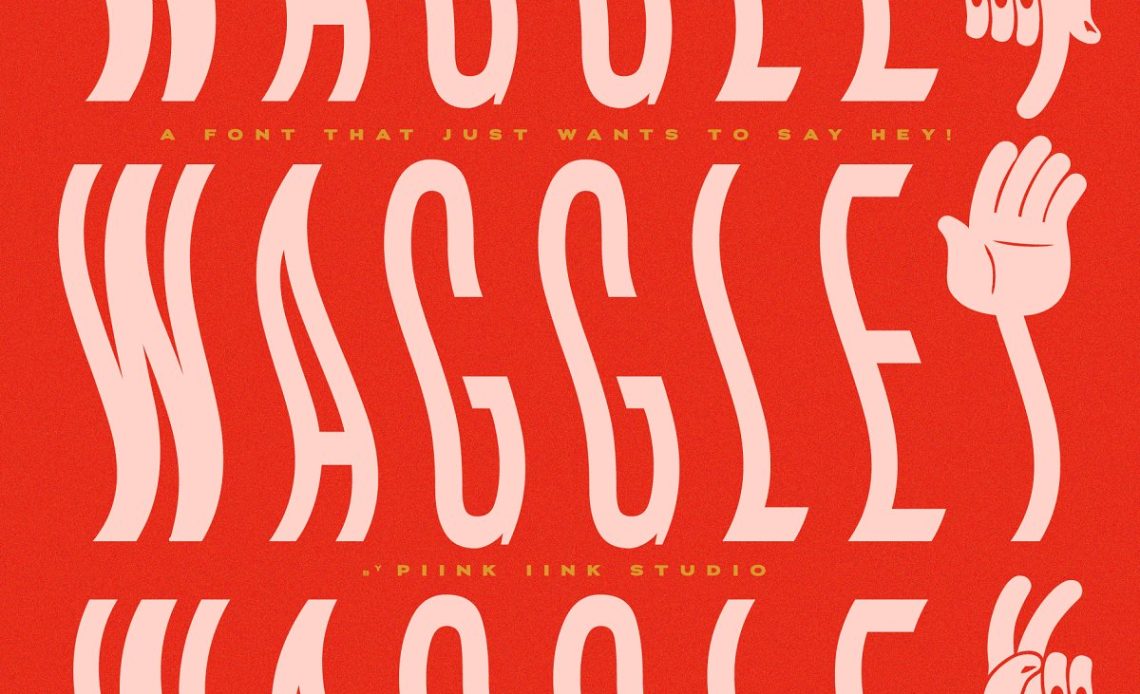
Are you looking for the perfect font to make your social media posts and advertising materials stand out? Look no further than WAGGLE Display Font! Created by the talented Jenny Boehme, this font is the best choice for bold hashtags and catchy headlines.
With its playful and quirky design, WAGGLE just wants to wave and waggle and say "Hey!" to your audience. Plus, the latest update includes even more punctuation, glyphs, and wacky new WAGG•DINGS to add a unique touch to your projects.